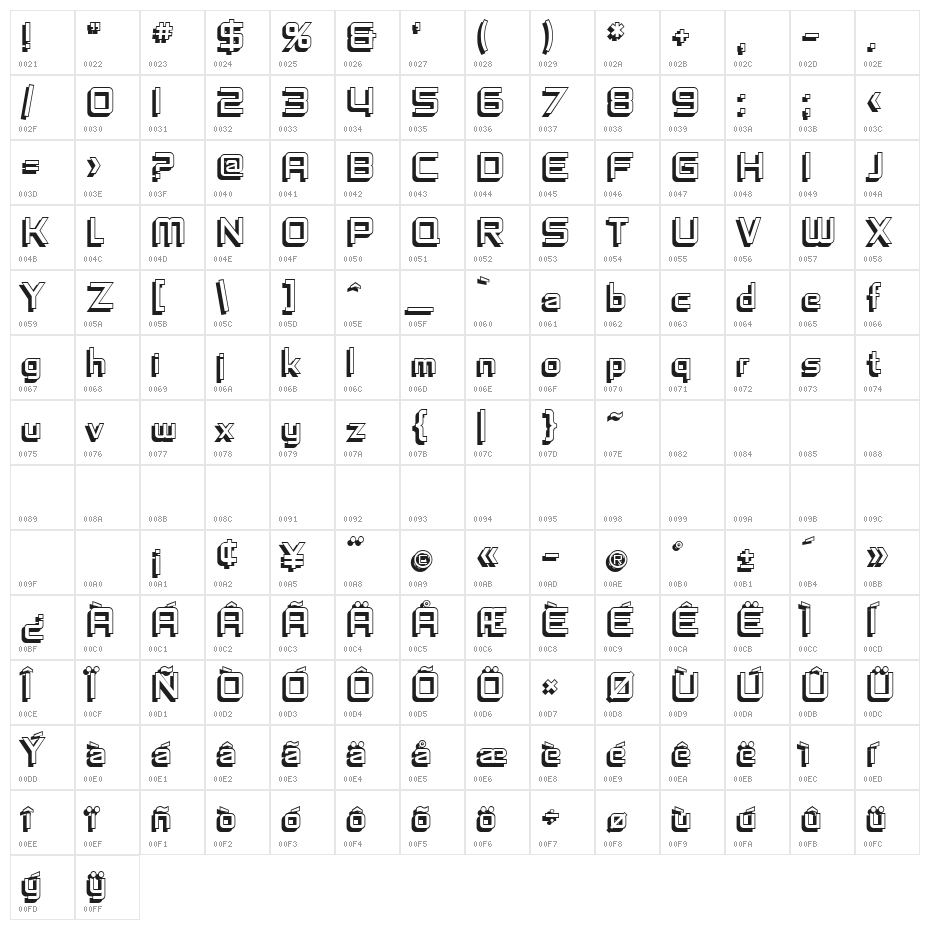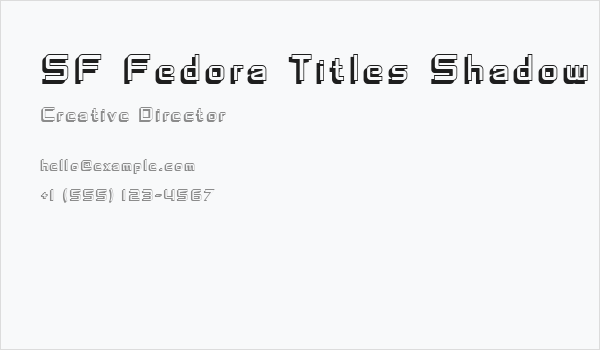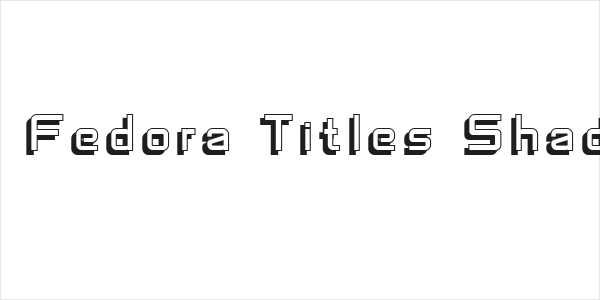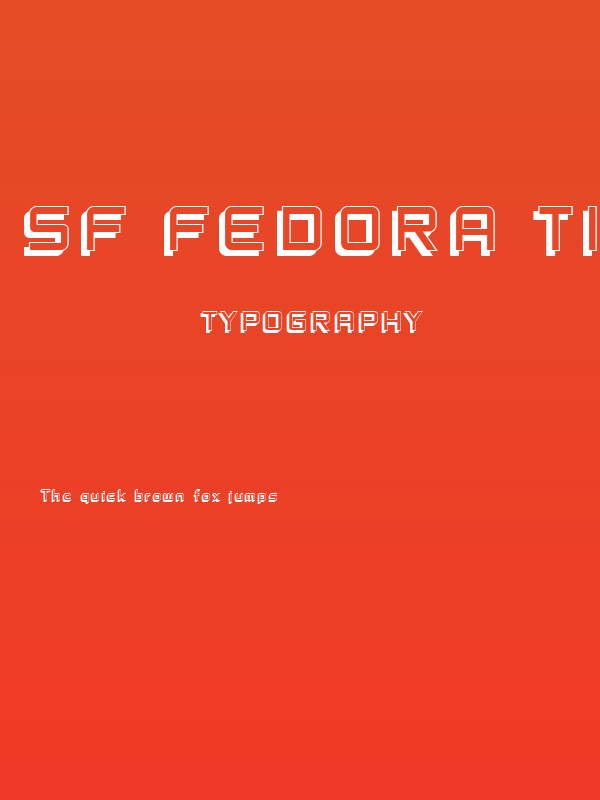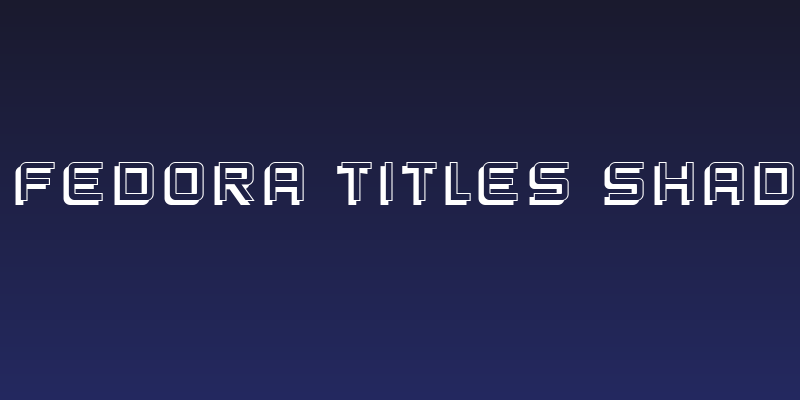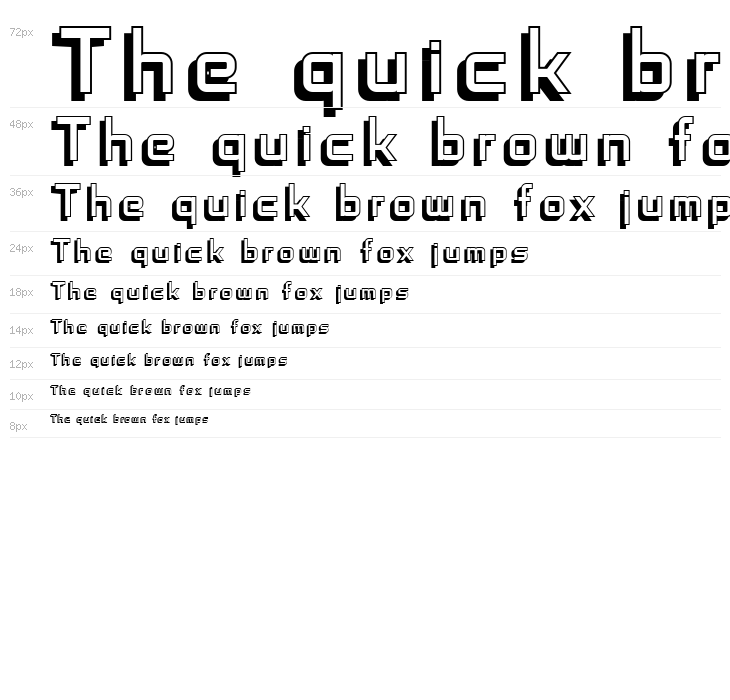
SF Fedora Titles Shadow Font
SF Fedora Titles Shadow Description
This font features a bold, geometric design with a distinct shadow effect that adds depth and dimension to each character. The uppercase and lowercase letters maintain a consistent style, characterized by sharp angles and clean lines. The numerals and special characters follow the same aesthetic, ensuring uniformity across all glyphs. The shadow effect is prominent, giving the font a three-dimensional appearance, making it stand out in any design. Its structured form and shadow detailing make it ideal for eye-catching headlines and titles.
| Proposed Projects | Perfect for posters, logos, video game graphics, and any project requiring a bold, standout typeface. |